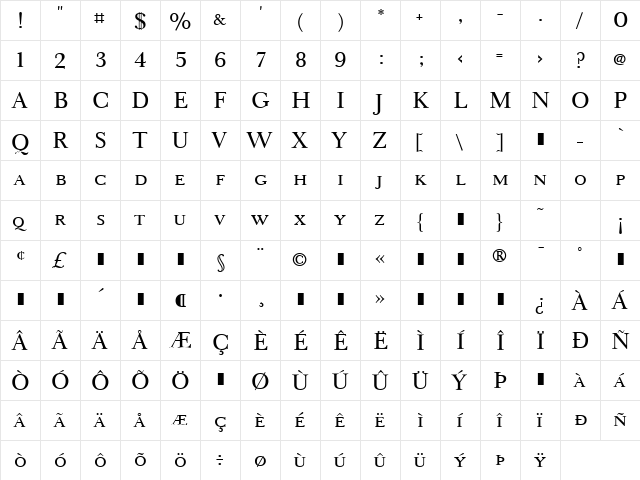
Baskerville1757 SmallCaps
Design Context for Baskerville1757 Typeface
Baskerville1757 takes a measured approach to typography — its balanced proportions and neutral character make it a reliable workhorse for both digital and print work.